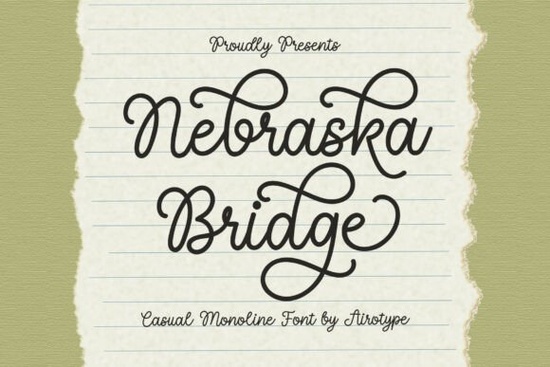
If you are looking for a typeface that feels like a genuine, handwritten note, the Nebraska Bridge Font is a wonderful choice for your next project. Created by Airotype, this casual monoline script captures the effortless grace of everyday handwriting. It bridges the gap between a formal calligraphy style and a relaxed, personal touch, making it highly versatile for various creative endeavors. Whether you are a graphic designer, a crafter, a print-on-demand seller, or a small business owner, finding the right typography is essential for connecting with your audience.
What makes this monoline script stand out?
The charm of this typeface lies in its consistent stroke weight and lyrical, sweeping loops. Unlike rigid digital fonts, it features open loops and a bouncy rhythm that give every word a sense of approachability and warmth. When you use it, the text feels less like typed words and more like a personal invitation from a friend. This natural flow is exactly what makes it so popular among creative hobbyists and brand owners who want their visual identity to feel authentic, inviting, and distinctly human.
Where should you use a casual handwritten typeface?
Because of its warm and organic feel, this font works beautifully for projects that need a genuine human touch. It is an excellent fit for boutique branding, especially for small businesses selling handmade goods, artisanal foods, or organic products. You can also use it to design heartfelt greeting cards, personalized wedding stationery, or custom labels for organic product packaging. If you run a “slow living” lifestyle blog, pairing this script with your photography will instantly make your content feel more intimate. For print-on-demand sellers, it looks fantastic on cozy apparel, canvas tote bags, and minimalist home decor items where a soft, personal aesthetic is the main selling point.
How does it pair with other typography styles?
When designing a layout, pairing a bouncy script with the right secondary font is crucial for readability and visual balance. If your project has a vintage or weathered vibe, you might want to mix it with something like a distressed grunge style for your main headers. For a softer, more feminine look, combining it with a delicate alternative script or a playful weekend style can create a beautiful, cohesive aesthetic. If you are working on earthy, natural packaging, an earthy textured typeface makes a great supporting choice for the body text. You can always explore more options in the main script collection to find the perfect match for your specific layout.
What are the best practices for using sweeping loops in print?
When printing designs that feature large, sweeping loops, pay close attention to your sizing and the materials you choose. Thin monoline strokes can sometimes get lost on highly textured papers, dark fabrics, or uneven surfaces.
- Test your prints: Always do a physical test print on your chosen material before running a large batch for your customers.
- Mind the size: Keep the font size large enough so the open loops remain distinct, legible, and true to the original design.
- Contrast is key: Ensure there is high contrast between the ink color and the background, which is especially important for organic packaging and apparel.
How can you ensure your typography choices are effective?
Before you finalize your next design project or upload a new product to your shop, run through this quick checklist to ensure your typography is working hard for your brand:
- Check if the font size is large enough to keep the delicate open loops readable on your chosen medium.
- Verify that the casual handwriting style matches the emotional tone and target audience of your product.
- Ensure your secondary fonts provide enough visual contrast without competing for the reader's attention.
- Print a physical proof to see how the monoline strokes hold up on your actual materials before committing to a full production run.
Taking a few extra minutes to test and refine your typography will save you time, reduce wasted materials, and ensure your final product looks exactly the way you envisioned.